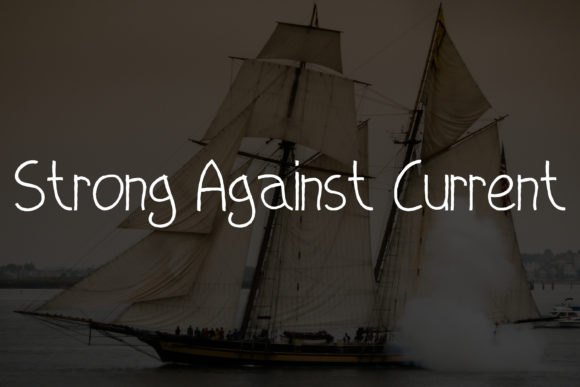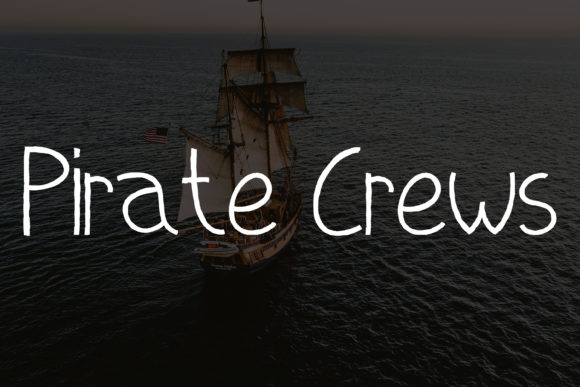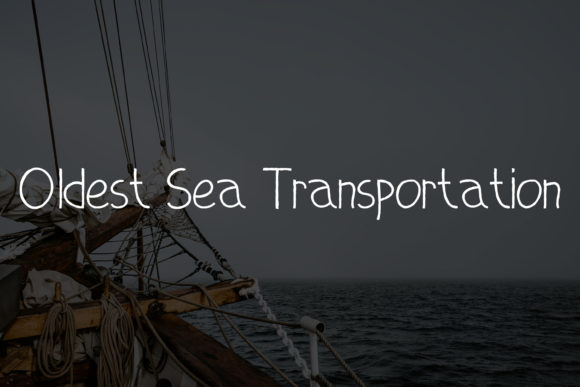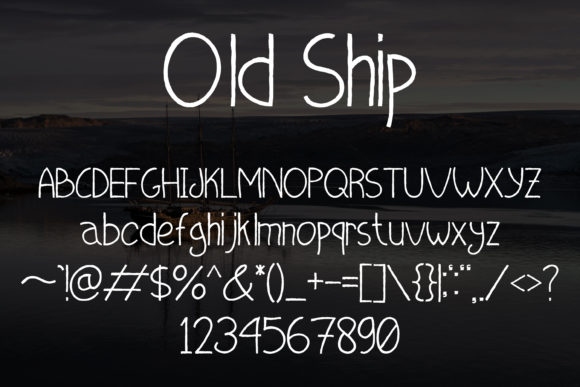
Introduction to Old Ship Font
Have you ever been working on a creative project, staring at a blank canvas or a piece of chalkboard, trying to come up with the perfect quote or phrase to convey your message? I’m sure you’ve felt that moment of inspiration when the words just flow, and you know exactly what you want to say. For designers and educators, finding the right font can be a game-changer in making their content stand out.
That’s where Old Ship Font comes in – a high-quality, handwritten font that adds a personal and realistic touch to your designs. With its authentic, thin lettered style, Old Ship Font is perfect for creating chalkboard quotes, teaching materials, and other educational content that needs a touch of warmth and personality.
Key Features of Old Ship Font
- Unique Vintage Style: The Old Ship Font offers a distinctive, nostalgic look that’s perfect for creative projects requiring a touch of history.
- High-Quality Design: This font is designed with precision and care, resulting in crisp, clear characters that are ideal for both digital and print use.
- Perfect for Creative Projects: The Old Ship Font is ideal for use in creative projects, such as graphic design, branding, and publishing, where a unique and vintage aesthetic is desired.
Honest Review: Old Ship Font
I recently came across the Old Ship Font and I must say, it’s a great addition to any designer’s toolkit. The high quality design makes it perfect for use in creative projects, especially those that require a vintage or nautical theme.
Here are some of the things that work well for me:
- ✨ The font is highly versatile and can be used for a wide range of creative projects, from posters to business cards.
However, there are a few limitations to be aware of:
- ⚠️ The font may not be suitable for use in all types of projects, especially those that require a modern or sleek look.
- ⚠️ Some designers may find the font to be a bit too ornate or over-the-top for their taste.
Overall, I think the Old Ship Font is a great addition to any designer’s toolkit. While it may have some limitations, its high quality design and versatility make it a valuable resource for any creative project.
Use the Old Ship Font in combination with other high-quality design resources to create a unique and eye-catching design. Experiment with different font sizes, colors, and styles to add depth and interest to your creative project.
The Old Ship Font is perfect for creative projects that require a vintage or nautical theme. Use it to design invitations, posters, or social media graphics that evoke a sense of adventure and nostalgia.